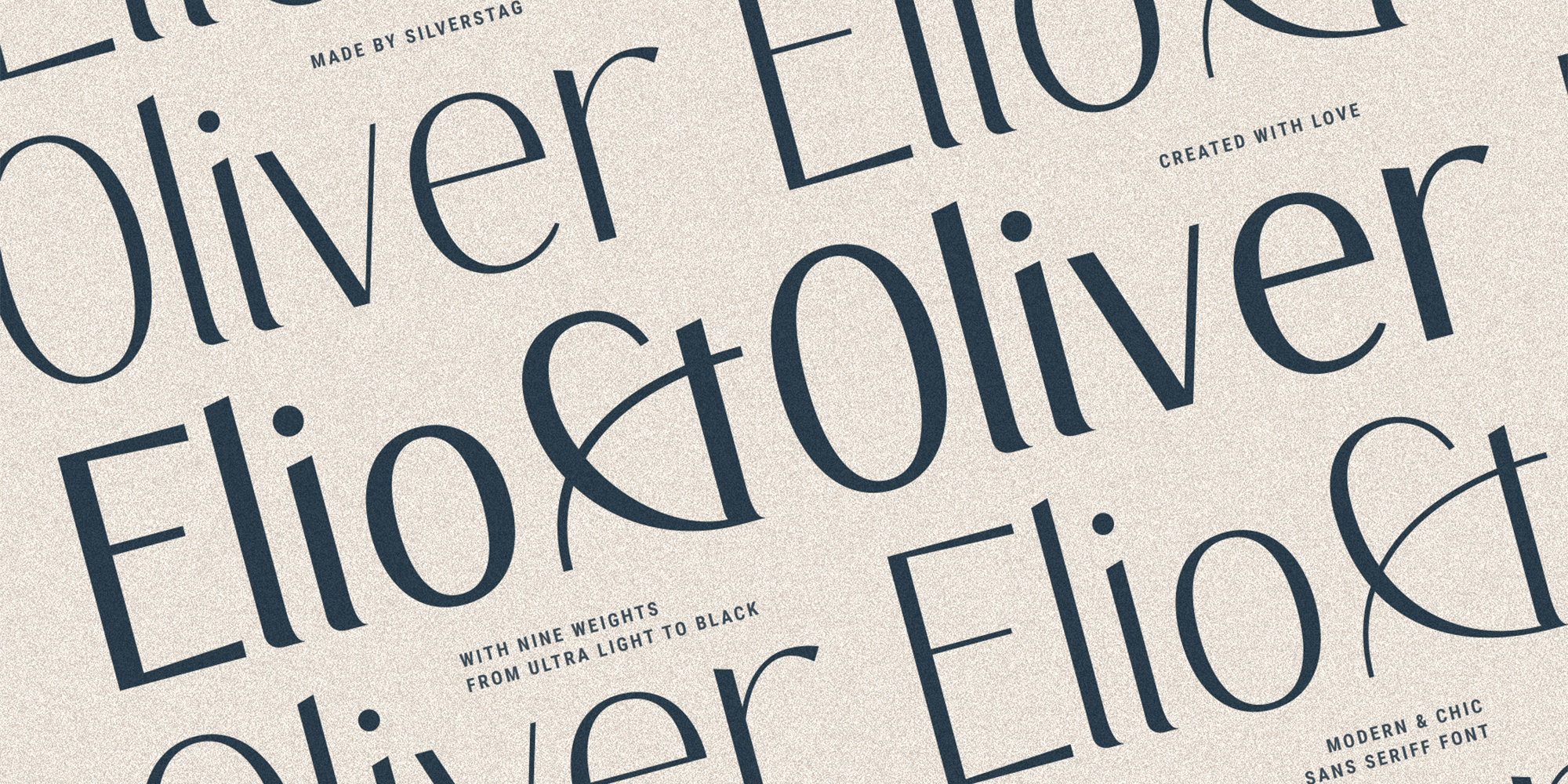
Elio & Oliver Font is perfect for romantic wedding invitations, boutique fashion branding, artisanal product packaging, literary book covers, elegant greeting cards, sophisticated editorial design, luxury lifestyle magazines, intimate restaurant branding, personal stationery design, and creative storytelling projects. This graceful typeface brings warmth and personality to designs that require emotional connection and refined aesthetics.
What makes Elio & Oliver Font exciting is its beautiful balance between romantic elegance and contemporary charm. The font features flowing letterforms with distinctive character personalities that create visual harmony while maintaining excellent readability. Its carefully crafted design elements include subtle flourishes and organic curves that give it a handcrafted feel, perfect for brands and projects seeking to convey authenticity, warmth, and personal touch.
Elio & Oliver Font comes in versatile font families including Regular, Bold, Light, Italic, Script, and Ornamental variations. Each family member captures the romantic essence of the original design while providing different stylistic options to create beautiful typographic hierarchies and design flexibility across various applications.
Whether you're designing for romantic occasions or creating intimate brand experiences, Elio & Oliver Font Free Download offers the perfect blend of elegance and personality. The font's distinctive character and emotional appeal make it an excellent choice for designers who want to create meaningful connections through typography that speaks to the heart and captures the essence of personal storytelling.